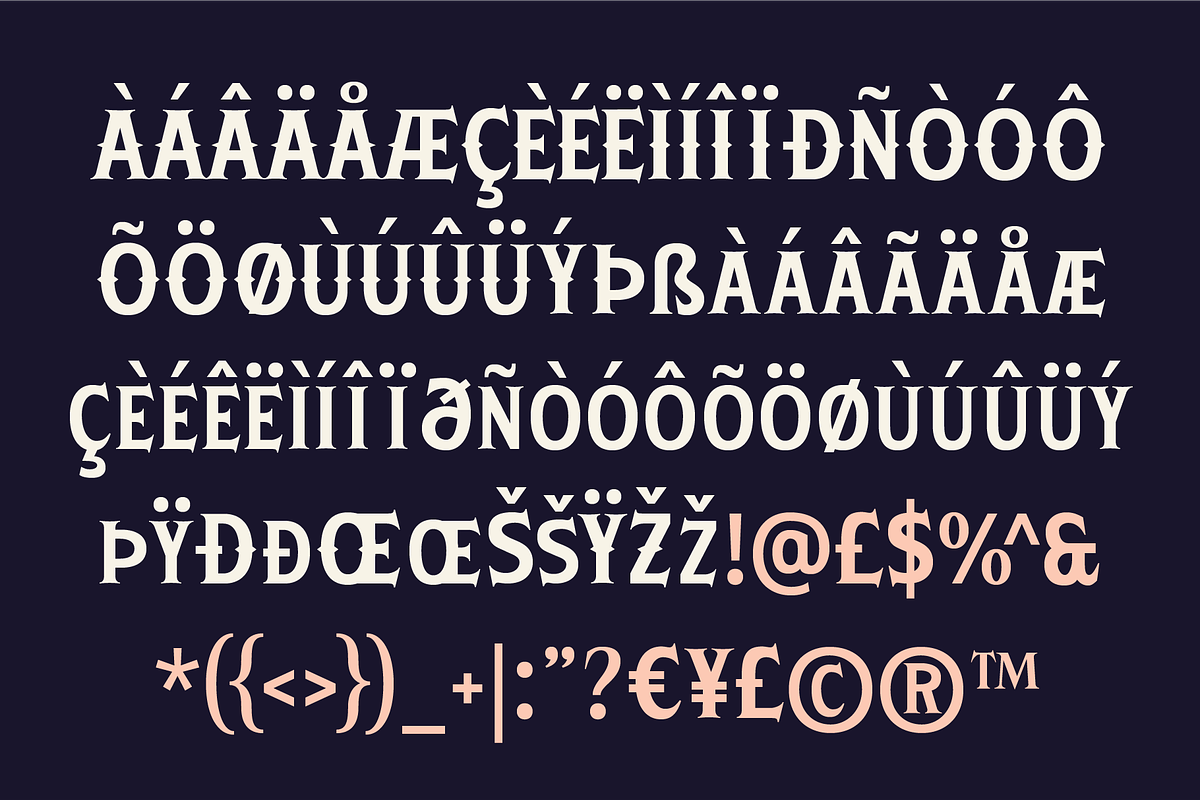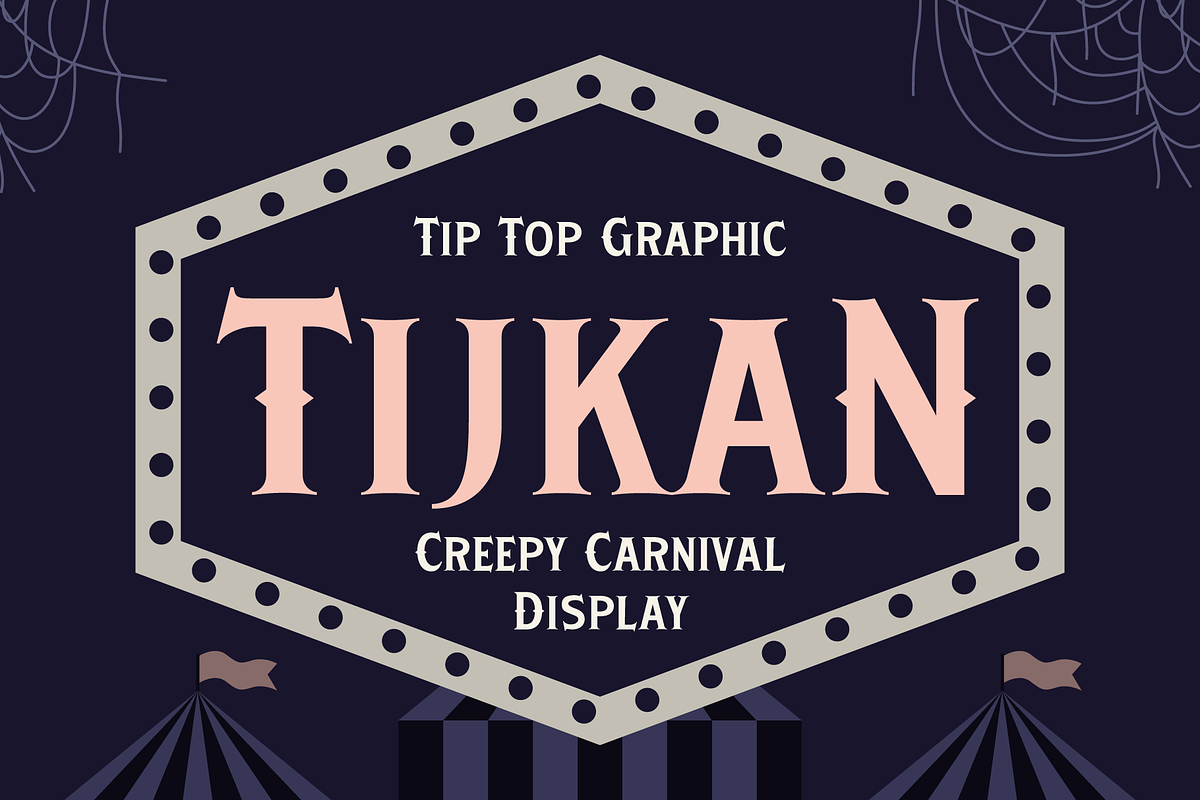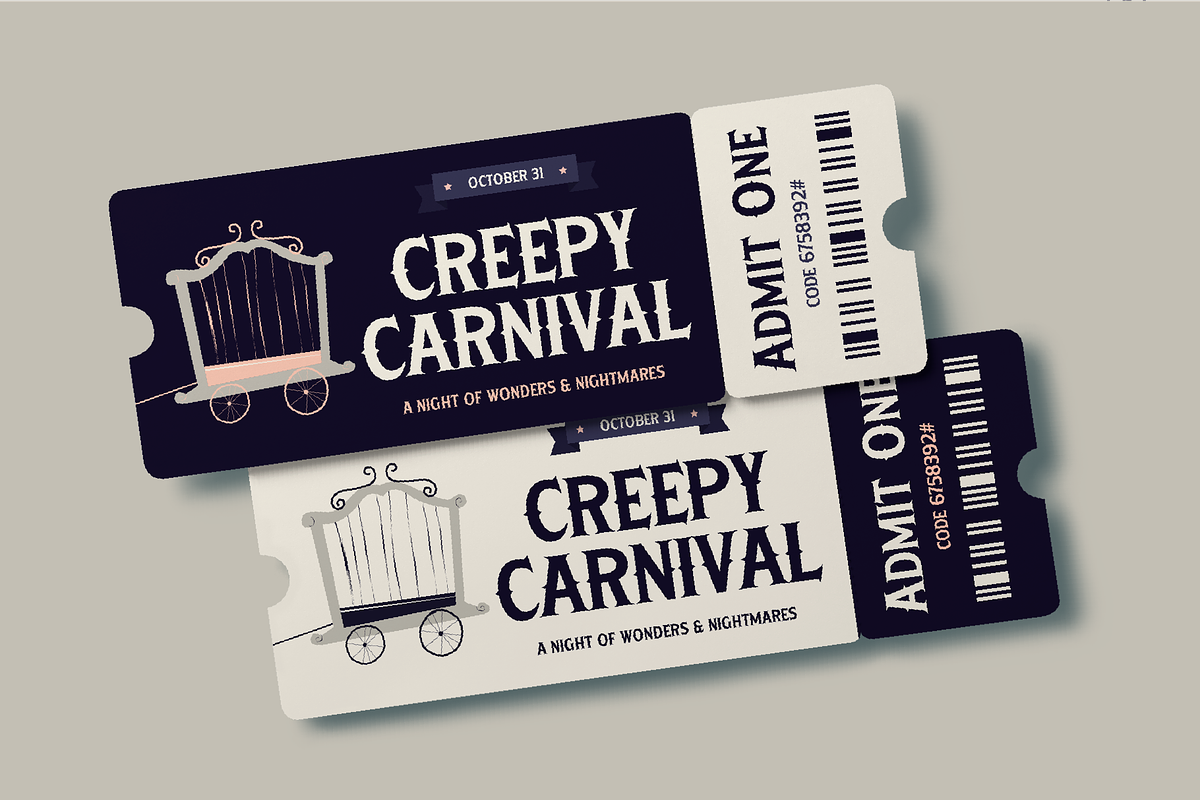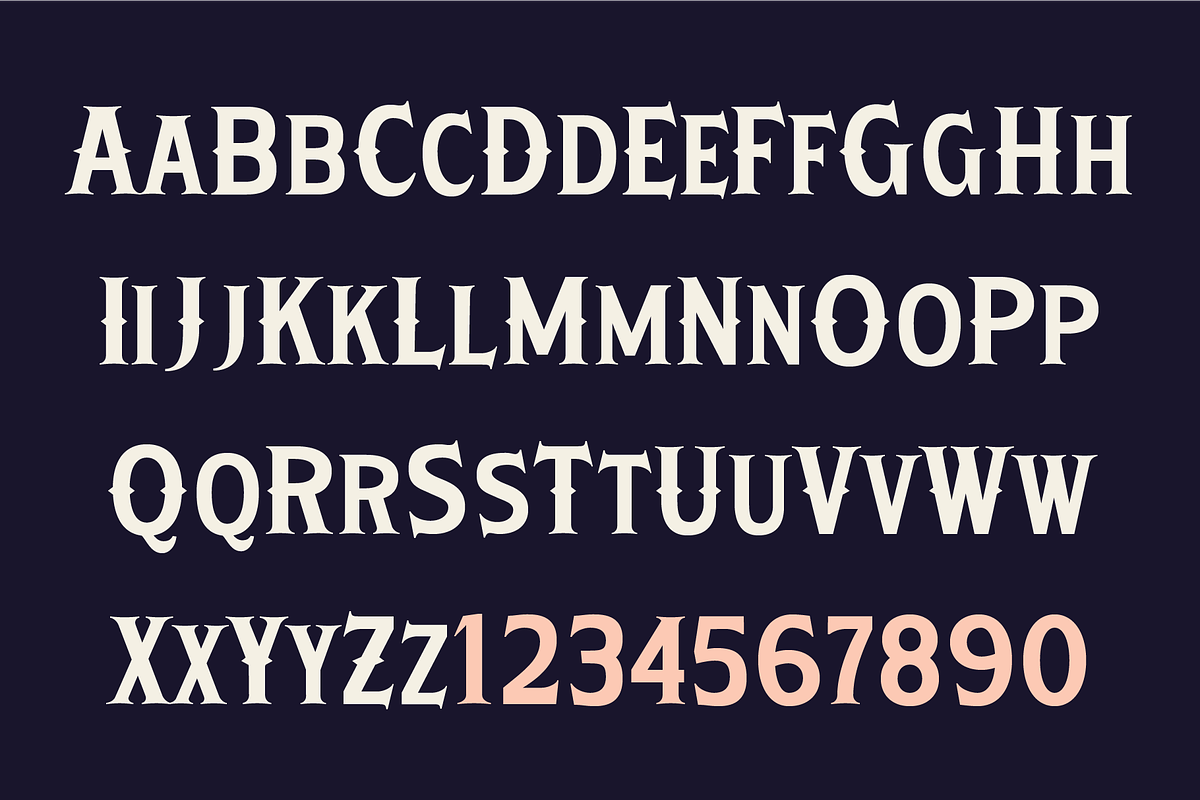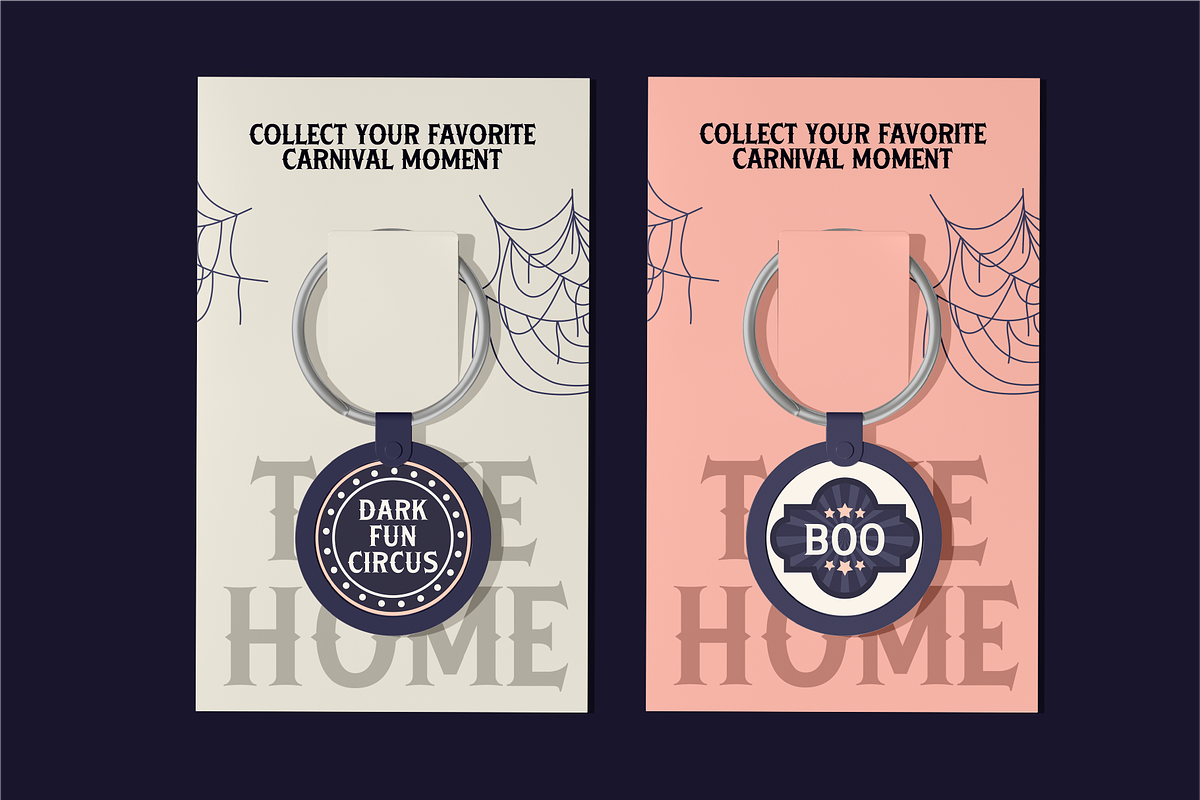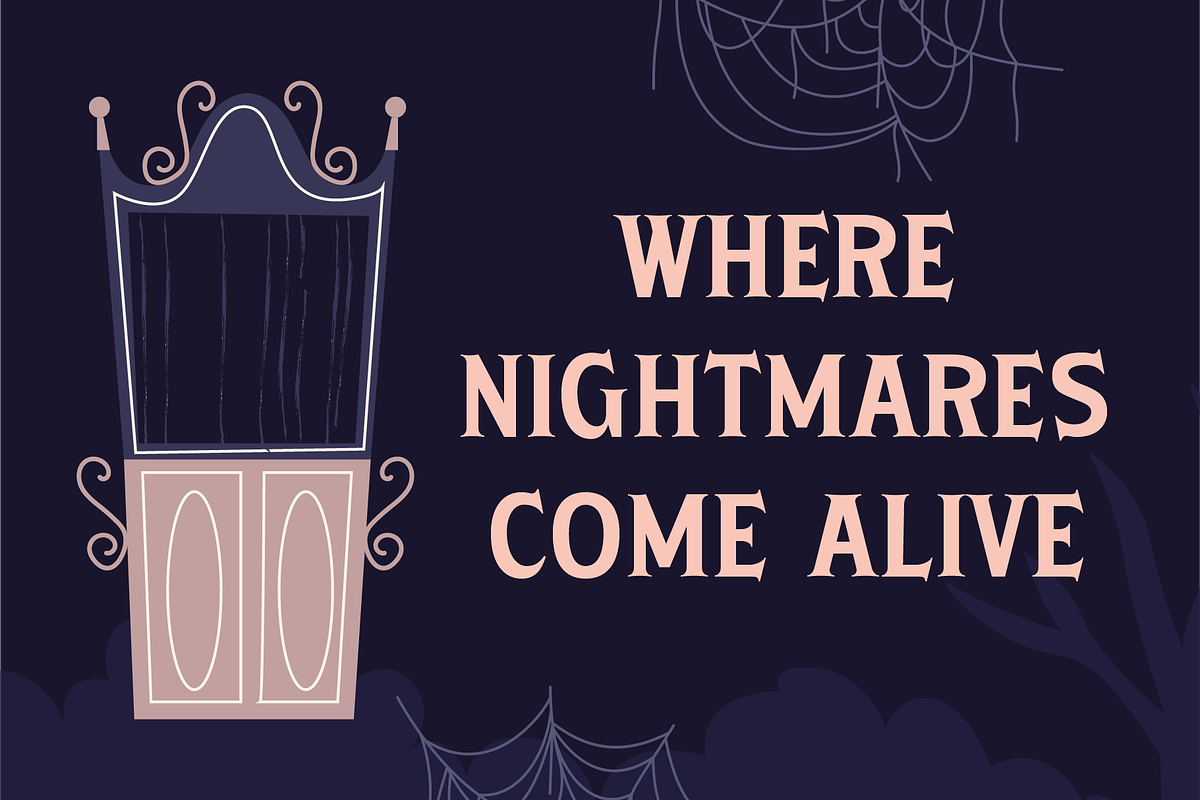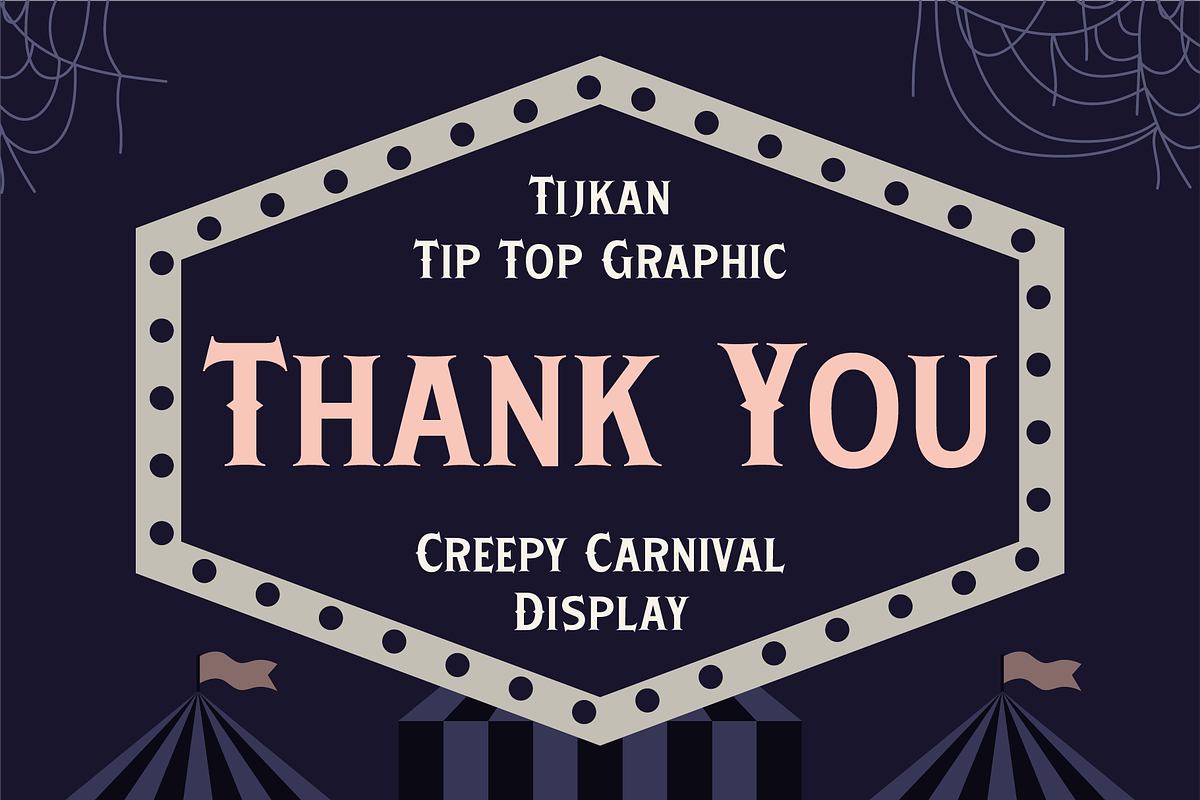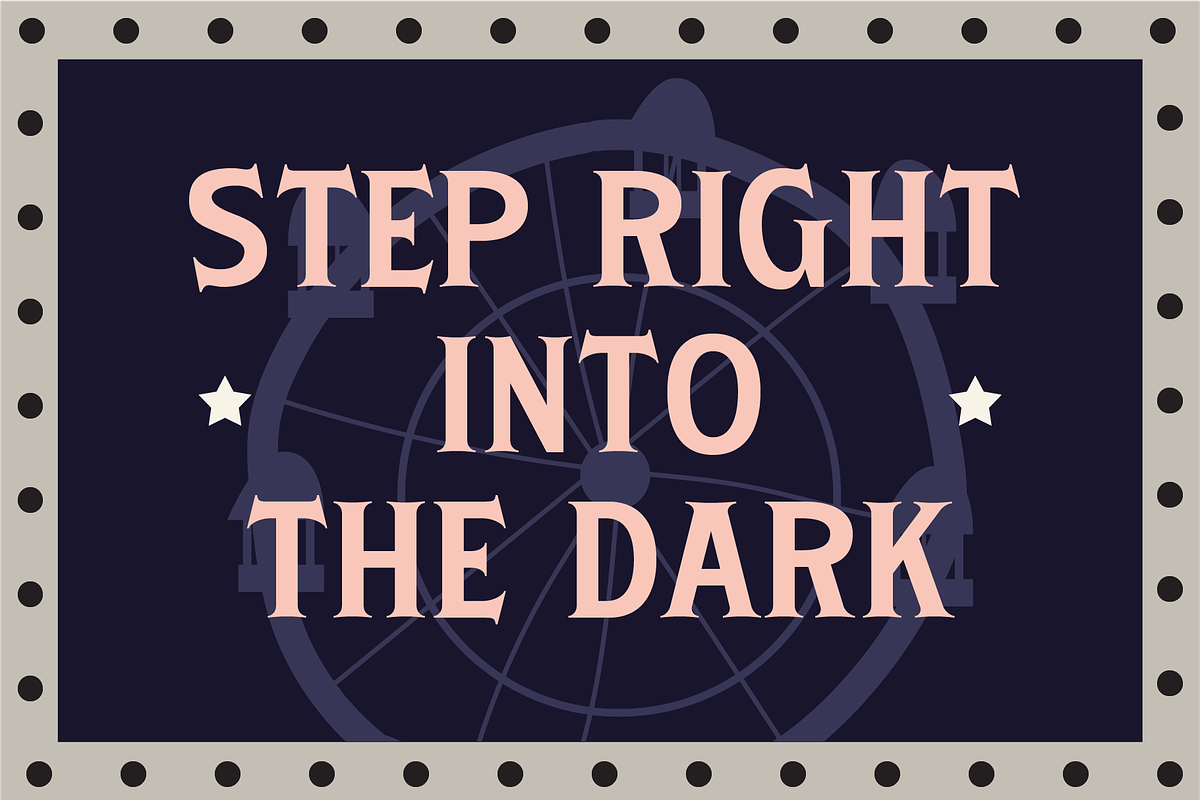
Tijkan – Creepy Carnival Display
Tijkan – Creepy Carnival Display Font
Step right up to the darker side of the carnival with Tijkan, a creepy carnival display font filled with quirky, eerie, and playful character. Inspired by vintage circus lettering and twisted carnival aesthetics, Tijkan brings a fun yet unsettling atmosphere to your designs.
Perfect for horror posters, Halloween designs, carnival graphics, circus branding, movie titles, album covers, event posters, merchandise, packaging, and spooky social media artwork. Whether you’re creating a mysterious carnival world or a bold horror-themed design, Tijkan adds an unforgettable creepy twist to every word.
Tijkan – Creepy Carnival Display Font features:
Punctuation & Numbers